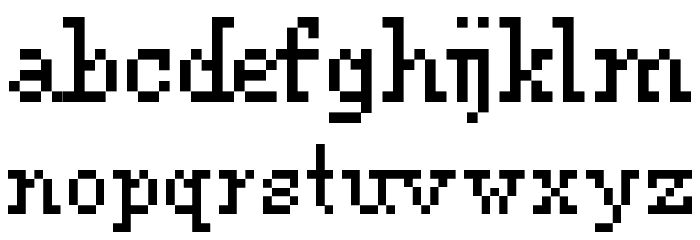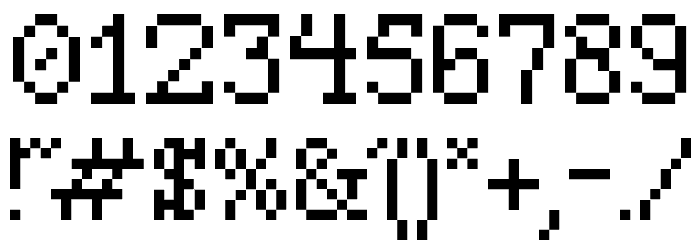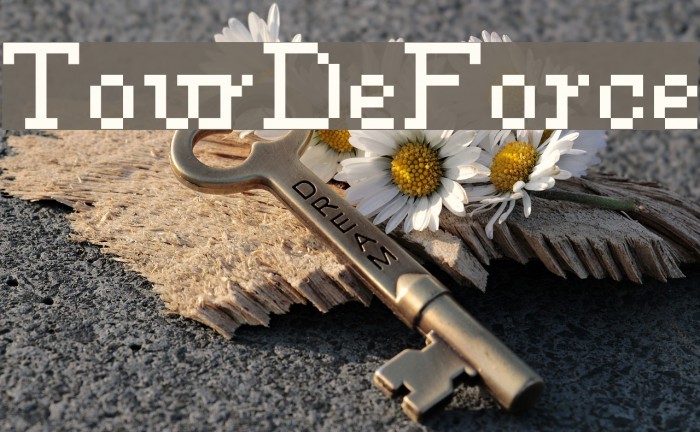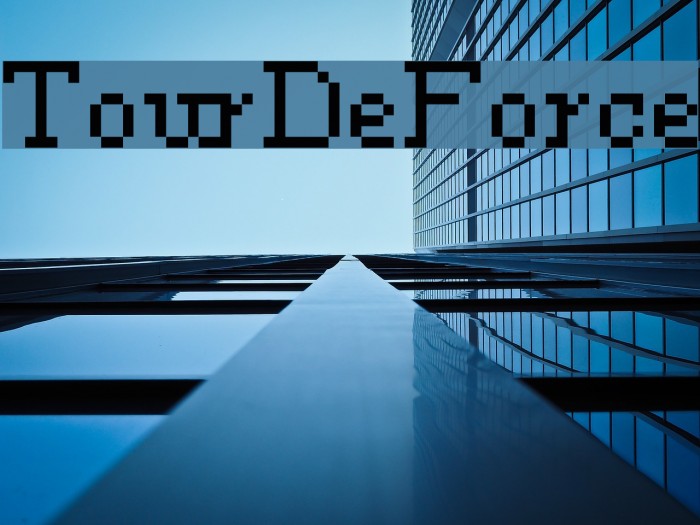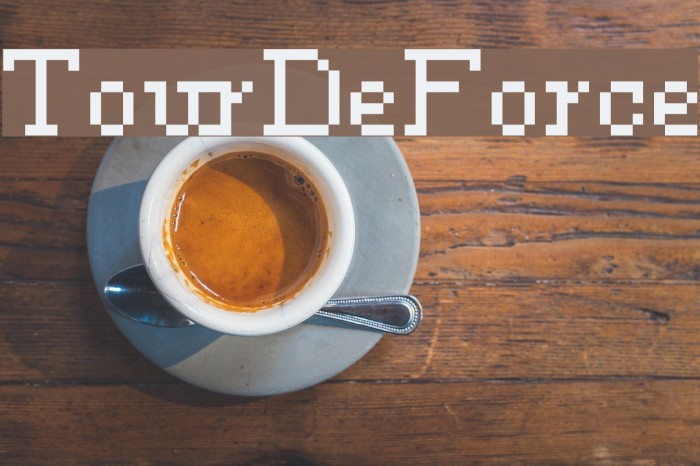
TourDeForce Font
This font features a pixelated, blocky design reminiscent of early digital or video game typography. Each character is composed of square blocks, creating a distinct, retro aesthetic. The uppercase and lowercase letters maintain a consistent height, contributing to a uniform appearance. Numbers and special characters follow the same pixelated style, ensuring visual coherence across all elements. The font's design is straightforward, with no curves or embellishments, emphasizing its digital roots.
A pixelated, blocky font with a retro digital aesthetic.
- Proposed Projects: Ideal for retro video game designs, digital art projects, or any creative work that seeks to evoke a sense of nostalgia for early computer graphics.
- Overall Style: Retro
- Use Case: Logos, Posters, Digital Art